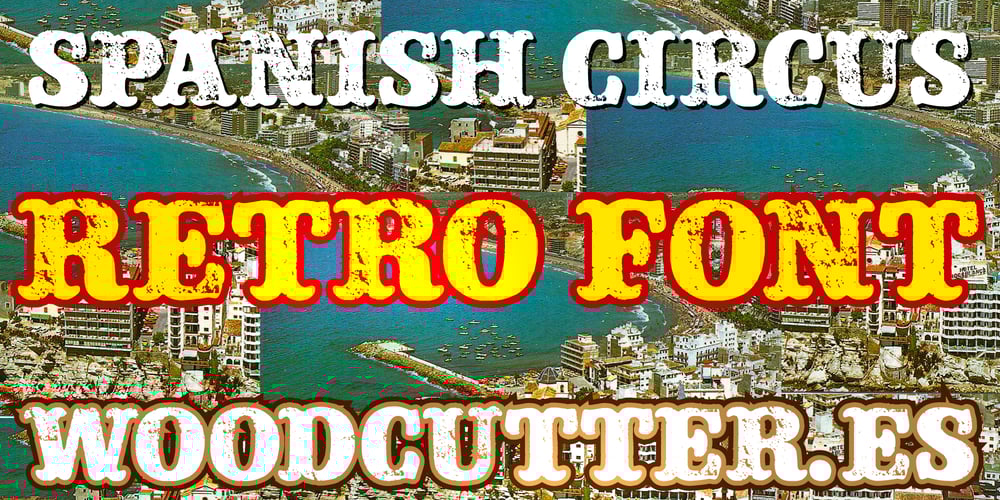
Spanish Circus Font Family was designed by Jordi Manero and published by Woodcutter. Spanish Circus contains 1 styles and family package options. “Spanish Circus” is a font that blends western aesthetics with the magic of old circuses. Its uppercase letters are worn and aged, reminiscent of vintage posters and shows from bygone eras. Each character carries a nostalgic and adventurous feel, perfect for projects that aim to convey a sense of spectacle and tradition. With its robust and textured style, “Spanish Circus” is ideal for designs that want to stand out with a vintage and theatrical touch.–Uppercase